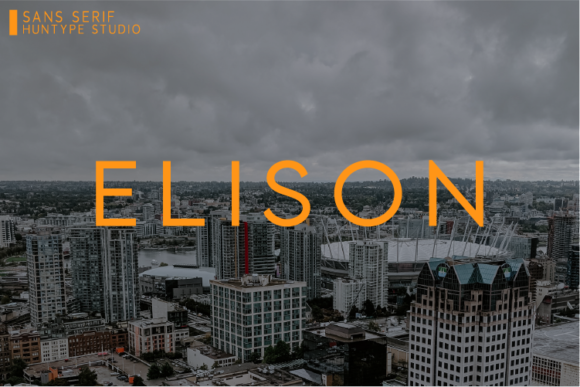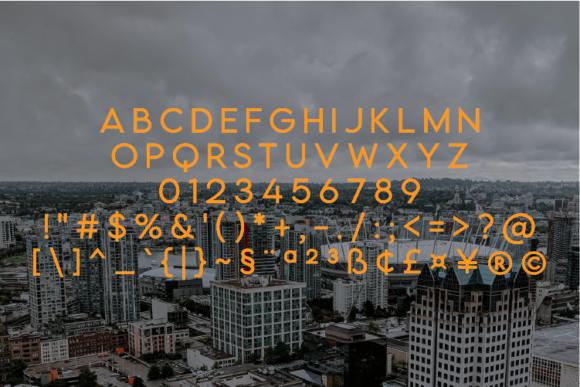
Have you ever been stuck on a design project, pouring over font options, trying to find the perfect one to convey your message? You’re not alone. I’ve been there too, scrolling through font libraries, searching for that elusive combination of style and legibility. And then, I stumbled upon Elison Font.
This timeless sans serif font is designed with one thing in mind: optimum legibility. Its clean, geometric look makes it perfect for logotypes, headers, titles, and brochures. Whether you’re working on a business card or a marketing campaign, Elison Font is sure to make your design stand out. For designers, Elison Font is a valuable asset, offering a versatile and elegant solution for a wide range of projects.
Elison Font Key Features
- Font Family: Elison is a modern sans-serif font family designed for digital use.
- Font Size: Elison comes in 5 different font weights (Hairline, Light, Regular, Medium, and Bold) to cater to various design needs.
- Resolution: Optimized for high-resolution displays, Elison is suitable for use in digital products, such as websites, apps, and e-books.
- Language Support: Elison supports multiple languages, including Latin, Greek, Cyrillic, and Devanagari scripts, making it a versatile font choice.
- Unique Characteristics: Elison’s clean and geometric design makes it an ideal choice for modern branding and design projects, while its wide range of weights allows for flexibility in typography.
Elison Font Review
Elison Font, a modern sans-serif typeface designed by Hoftype, has been gaining attention in the design community. After using it in several projects, I’m sharing my honest review of this font.
- Elison Font has a clean and minimalist design, making it perfect for digital products and websites.
- The font is highly legible, even at small sizes, which is a major plus for designers who want to convey information efficiently.
- The font family includes multiple weights, from light to bold, offering designers plenty of flexibility for creating visually appealing typography.
- Elison Font may not be the best choice for body text in long-form content, as it can feel a bit too modern and attention-seeking.
- The font lacks a distinct personality, which may make it feel less memorable than other typefaces.
While Elison Font has its limitations, it’s a solid choice for designers who want a clean and modern sans-serif typeface. Its versatility and high legibility make it suitable for a wide range of projects, from digital products to marketing materials. However, it may not be the best fit for more traditional or formal designs.
Elison Font is a versatile font that can be used in a variety of contexts, including:
- Brand identity and logo design
- Food and beverage packaging
For optimal results, use Elison Font in conjunction with other elegant and refined fonts to create a cohesive and sophisticated design aesthetic.